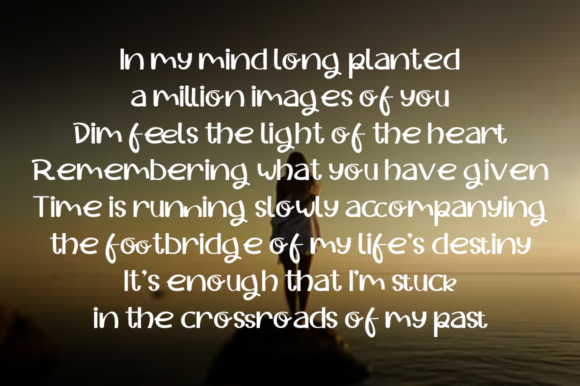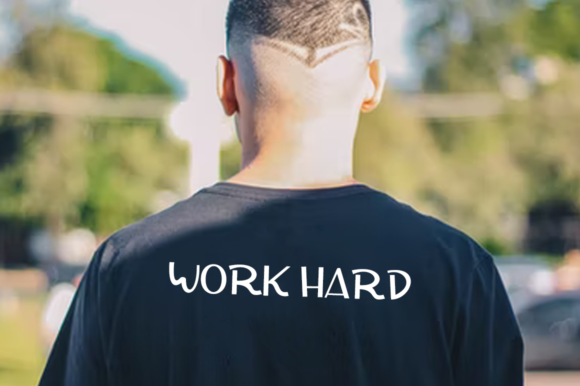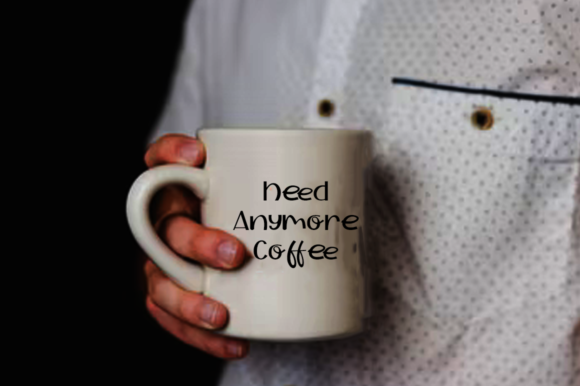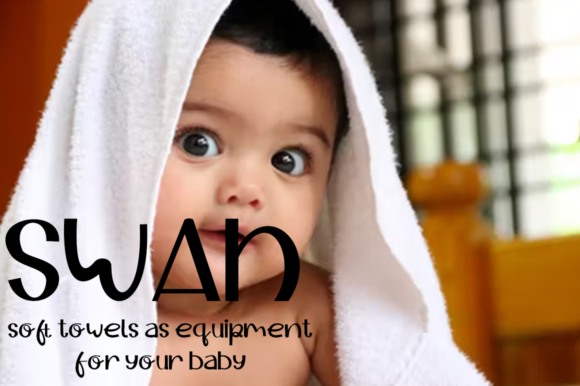
Gindim Font: Add a Joyful Touch to Your Designs
Are you tired of using the same old fonts in your designs? Do you want to add a playful and quirky touch to your creative projects? Look no further than the Gindim Font! This adorable display font is sure to bring a smile to your face and make your designs stand out from the crowd.
What is Gindim Font?
Gindim Font is a cute and quirky display font that is perfect for adding a joyful touch to your designs. Its unique and playful style makes it ideal for use in a variety of creative projects, from posters and flyers to social media graphics and craft projects.
Key Features of Gindim Font
- Cute and Quirky Design: Gindim Font has a unique and playful design that is sure to add a smile to your face.
- Display Font: Gindim Font is a display font, making it perfect for use in headlines, titles, and other creative projects where you want to make a statement.
How to Use Gindim Font in Your Designs
Using Gindim Font in your designs is easy! Here are a few ideas to get you started:
- Posters and Flyers: Use Gindim Font as a headline font to add a playful touch to your posters and flyers.
- Social Media Graphics: Add a fun and quirky touch to your social media graphics with Gindim Font.
- Craft Projects: Use Gindim Font in your craft projects, such as card making and scrapbooking, to add a personal and playful touch.
- Branding and Packaging: Use Gindim Font as a display font in your branding and packaging designs to make them stand out.
Benefits of Using Gindim Font
There are many benefits to using Gindim Font in your designs. Here are a few:
- Adds a Playful Touch: Gindim Font adds a playful and quirky touch to your designs, making them more engaging and fun.
- Unique and Creative: Gindim Font is a unique and creative font that will help your designs stand out from the crowd.
- Easily Accessible Glyphs and Ligatures: The PUA encoding of Gindim Font makes it easy to access all of the amazing glyphs and ligatures, allowing you to create complex and beautiful designs.
Tips for Getting the Most Out of Gindim Font
Here are a few tips for getting the most out of Gindim Font:
- Experiment with Different Sizes and Colors: Experiment with different sizes and colors to find the perfect combination for your design.
- Pair with Other Fonts: Pair Gindim Font with other fonts to create a unique and creative design.
- Use in Combination with Images: Use Gindim Font in combination with images to add a playful and quirky touch to your designs.
In conclusion, Gindim Font is a cute and quirky display font that is perfect for adding a joyful touch to your designs. With its unique and playful style, PUA encoding, and ease of use, it’s a great addition to any designer’s toolkit. Whether you’re a professional designer or a crafter, Gindim Font is sure to bring a smile to your face and make your designs stand out from the crowd.